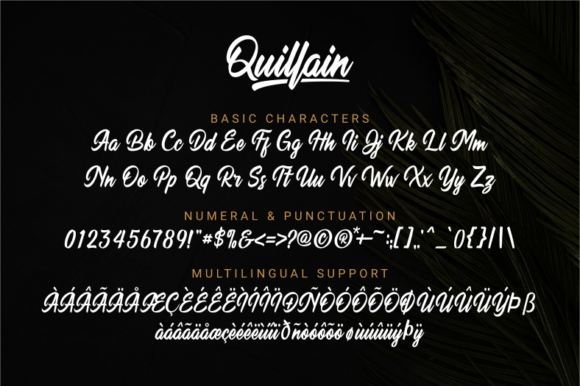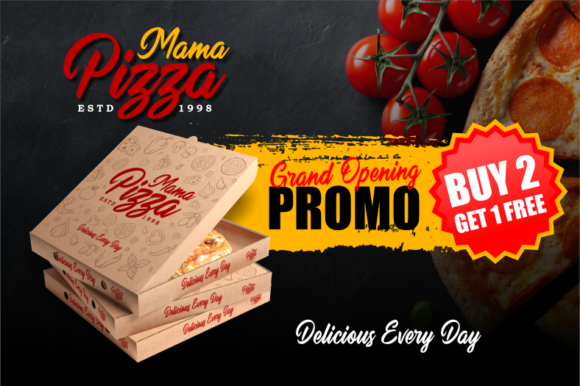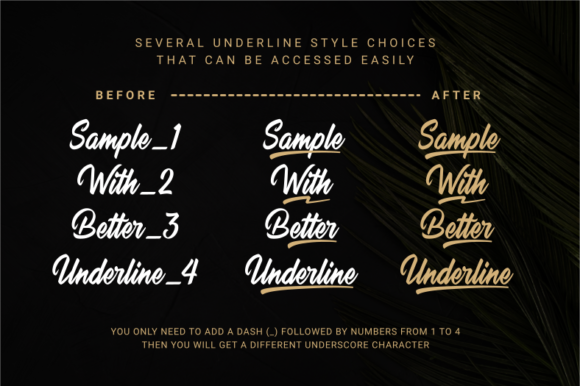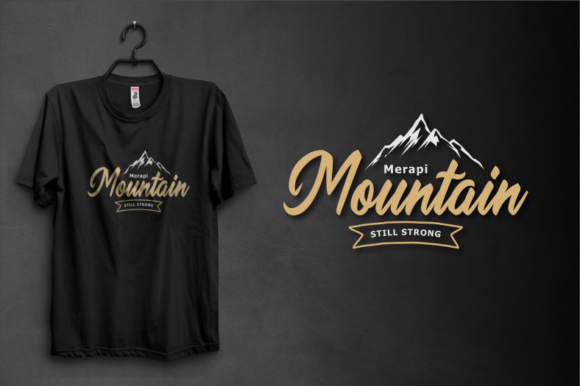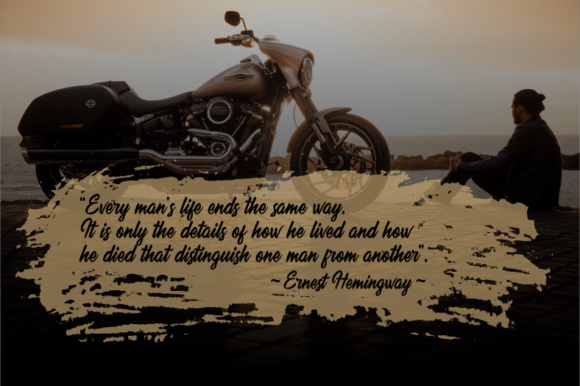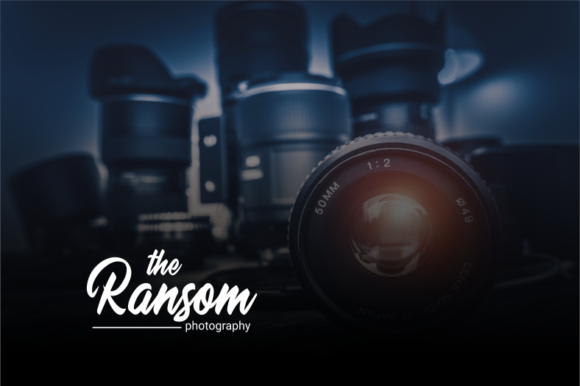
Introduction to Quillain Font
Quillain is a casual, fun handwritten font, created by using a marker.
Clean and stylish, this font is the perfect fit for all of your logos, branding, social media, and crafty DIY projects .